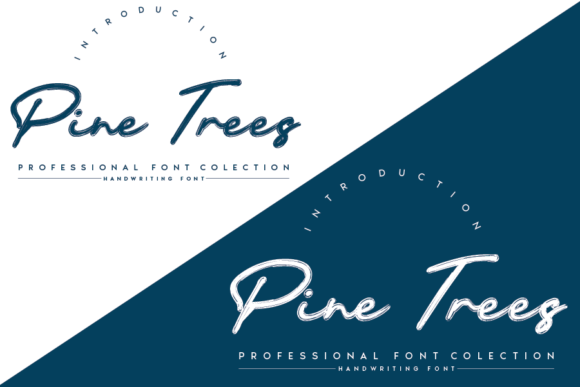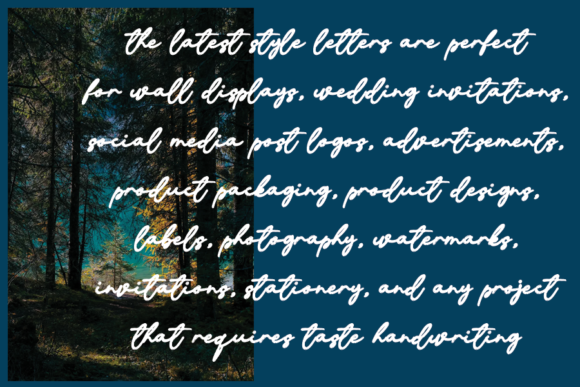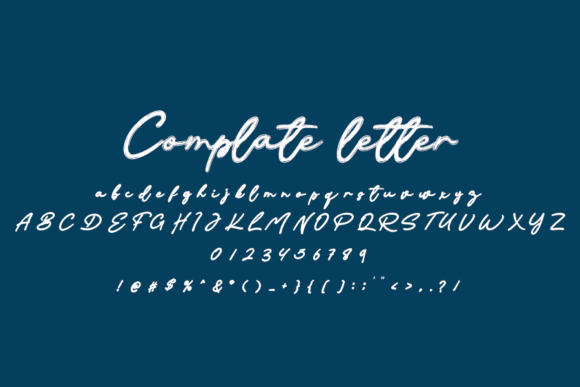
Introduction to Pine Trees Font
Pine Trees is a flowing handwritten font, described by an elegant touch, perfect for your favorite projects.
Key Features of Pine Trees Font
Why Choose Pine Trees Font?
Pine Trees Font offers exceptional quality and versatility, making it a valuable addition to your design toolkit. Whether you’re creating for personal projects or commercial use, Pine Trees Font delivers professional results.